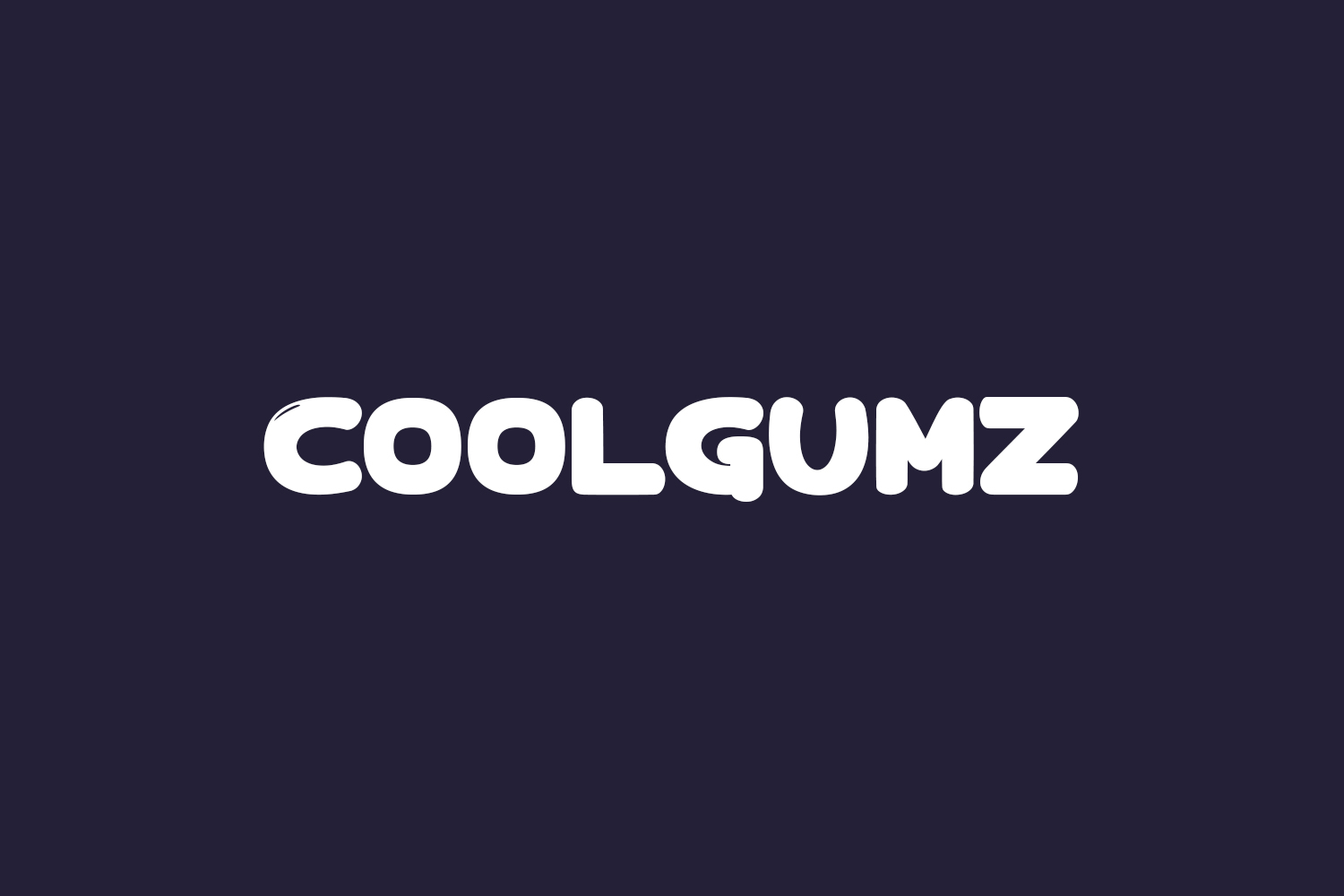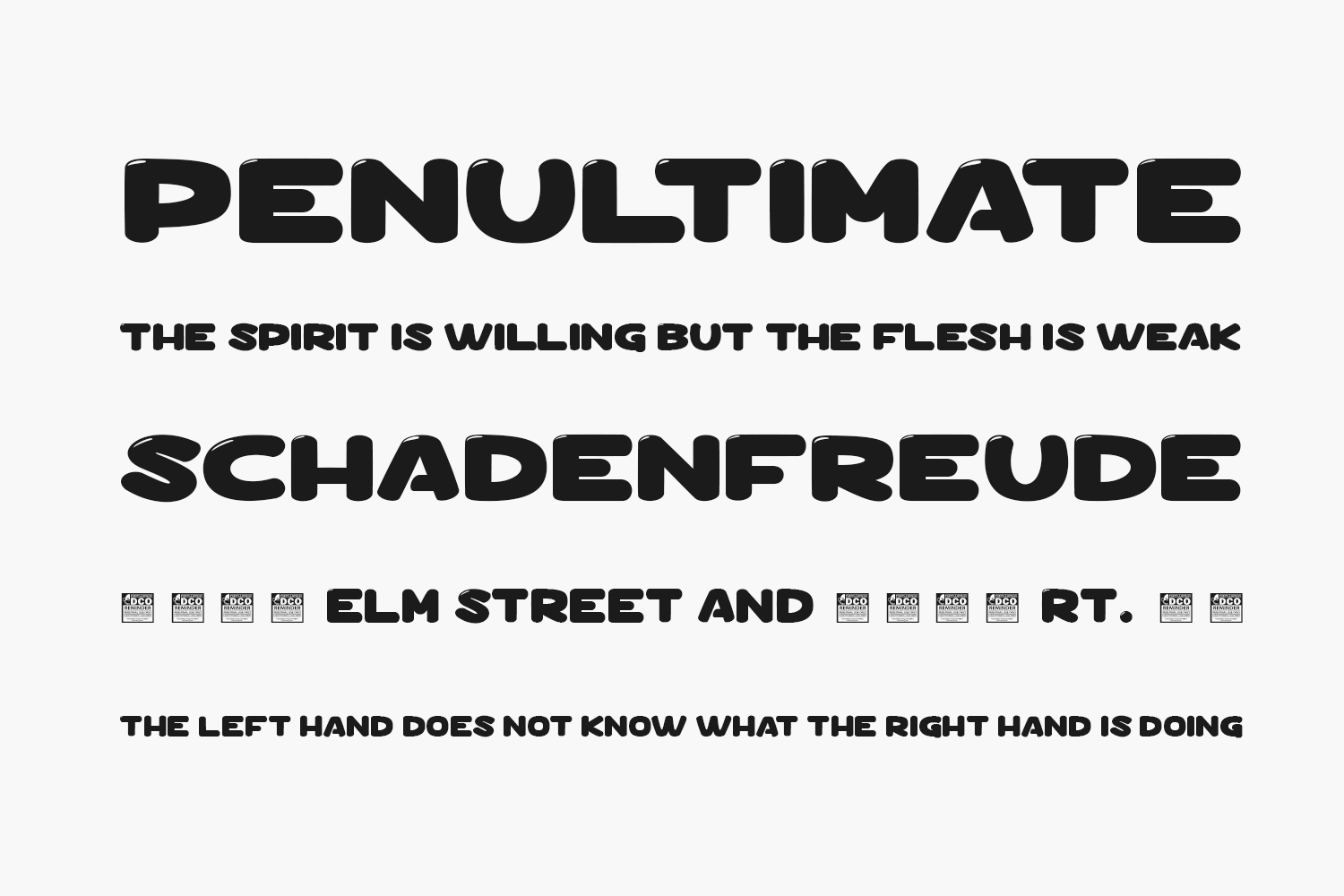
Get ready to add some serious personality to your designs with display fancy cartoon Coolgumz Free Font! This font is the perfect tool to inject some fun and whimsy into your creative projects. With its unique and playful cartoon style, this font is sure to make your designs stand out from the crowd. And best of all, it’s completely free, so you can add some extra flair to your designs without breaking the bank. Whether you’re working on a children’s book, a cartoon logo, or a playful social media post, Coolgumz Free Font is the perfect choice to bring your vision to life. So why settle for a plain and boring font when you can add some cool and colorful personality to your designs? Download now and let your creativity run wild!
Designed by Dcoxy